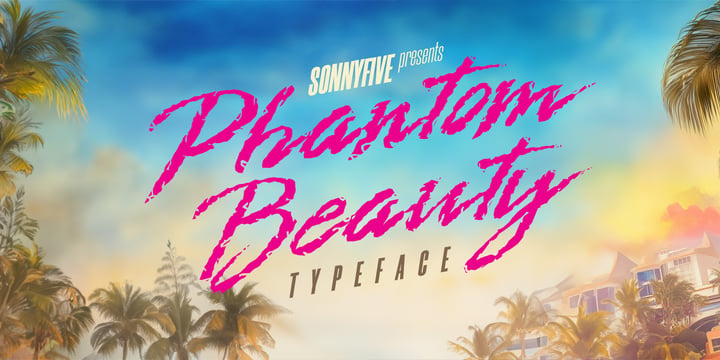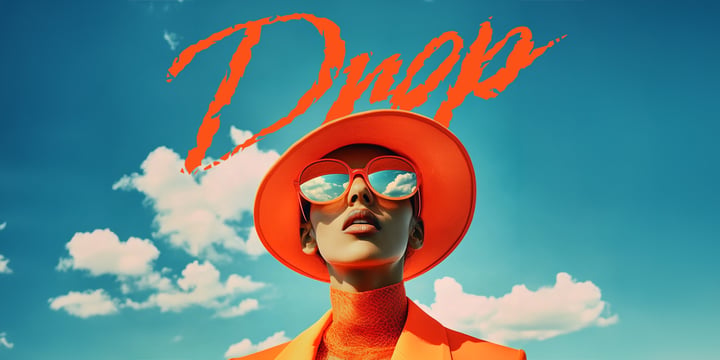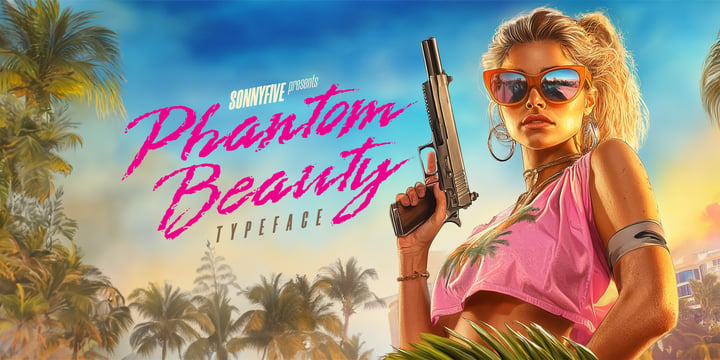
I came up with the name Sonnyfive back in 2017 — a blend of my name and my favorite number.
I was intentionally looking for something that felt like it was ripped straight from the 1980s. That era has always inspired me — the movies, the aesthetics, the music, the chaos.
That same year, I designed my very first typeface, which naturally became Sonnyfive Typeface. Since then, I’ve created three more fonts — the latest one being Phantom beauty, a project I’ve been dreaming about for a long time.
It was the most difficult to create — and the one I’m most proud of.
Sonnyfive isn’t just a font label.
It’s a space where I explore everything I love: horror-inspired visuals, cinematic graphics, lighting, shading, and storytelling through design.
Somewhere along the way, Netflix took notice — and I had the honor of designing a Stranger Things tarot card deck.
The 1980s were full of urgency, fast decisions, and an uncertain view of the future.
That spirit shaped everything — films, fashion, music — and I like to believe it shaped my fonts, too.
There’s always a bit of chaos in the curves…
But with Phantom beauty, I finally let myself slow down — and craft something truly complete.